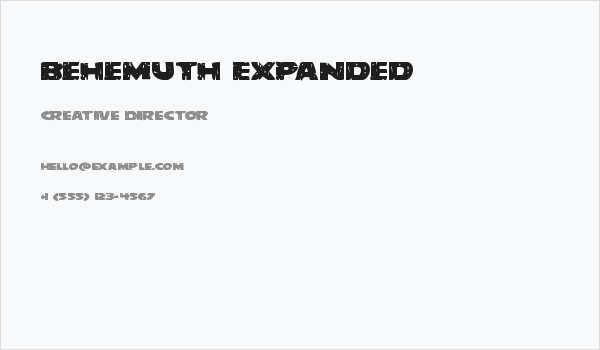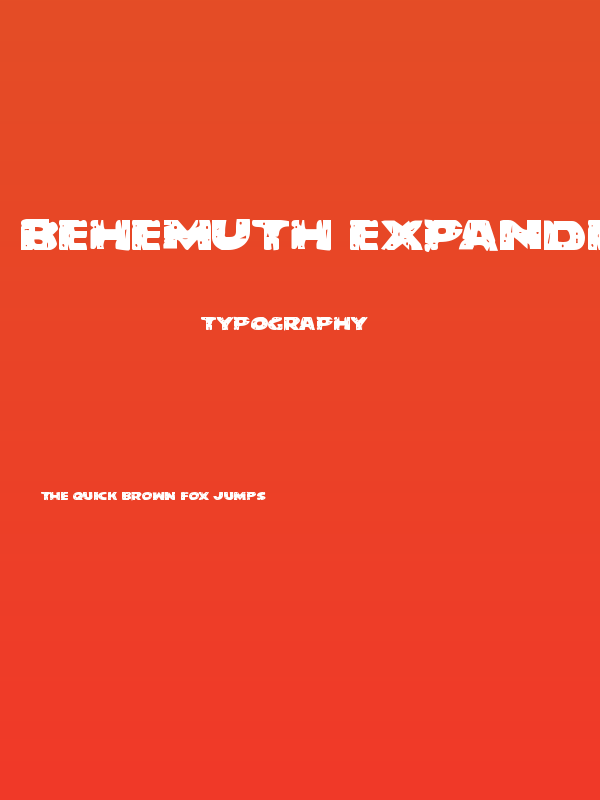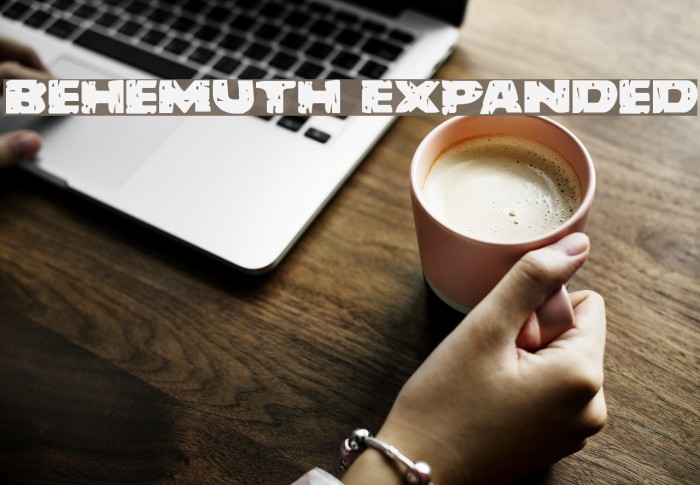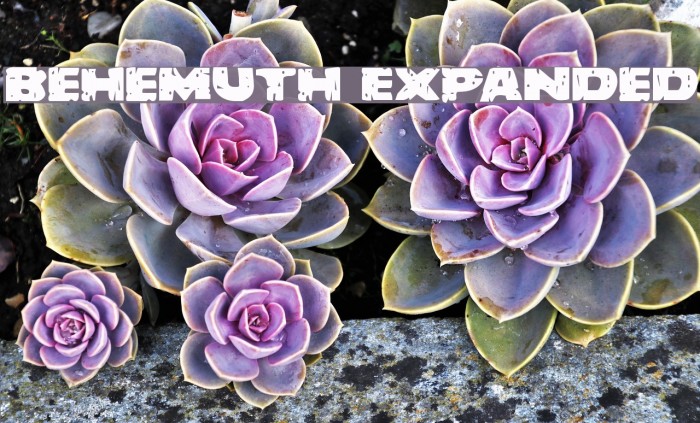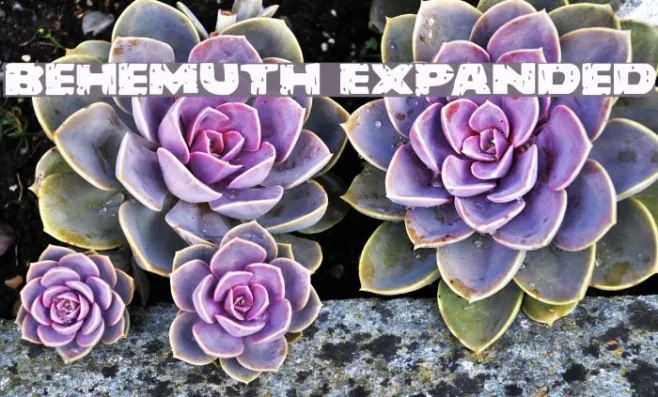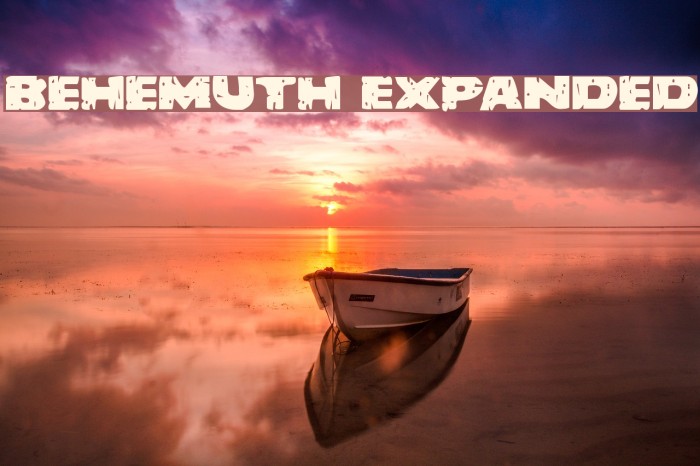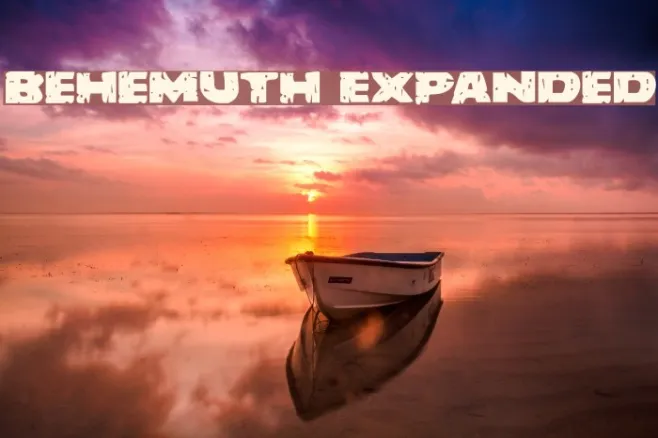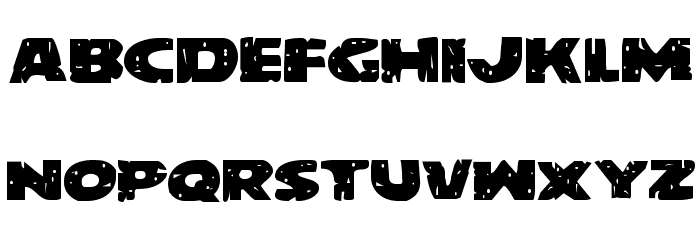
Behemuth Expanded Font
Behemuth Expanded Description
This font is a bold and decorative typeface with a unique, playful style. It features thick, blocky letters with irregular, distressed edges that give it a rugged, adventurous feel. The characters are wide and expansive, making them stand out prominently. The font includes both uppercase and lowercase letters, numbers, and a variety of special characters. Its distinctive appearance makes it ideal for eye-catching designs where a strong visual impact is desired. The irregularities in the letterforms add a dynamic and energetic quality, making it suitable for creative projects that require a bold statement.